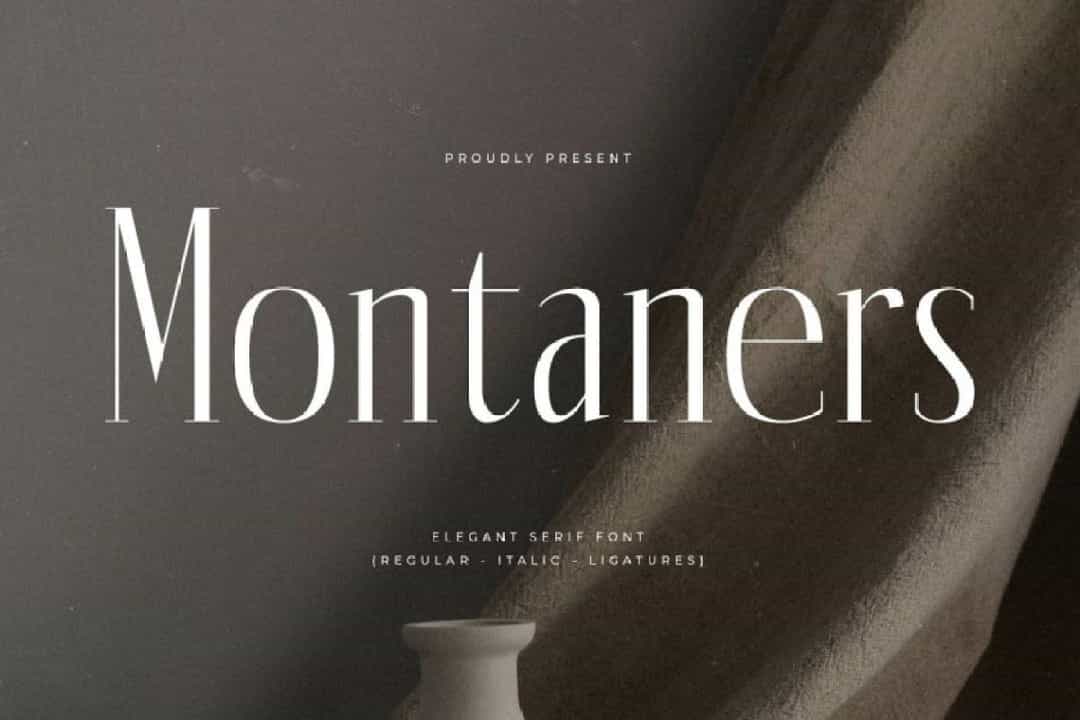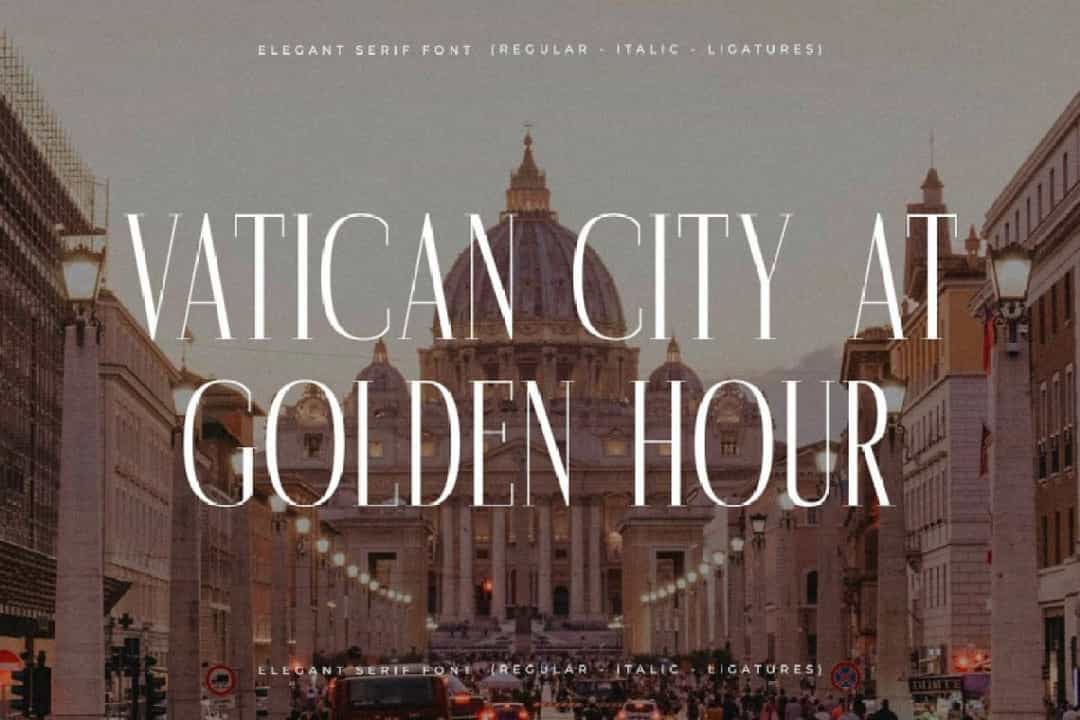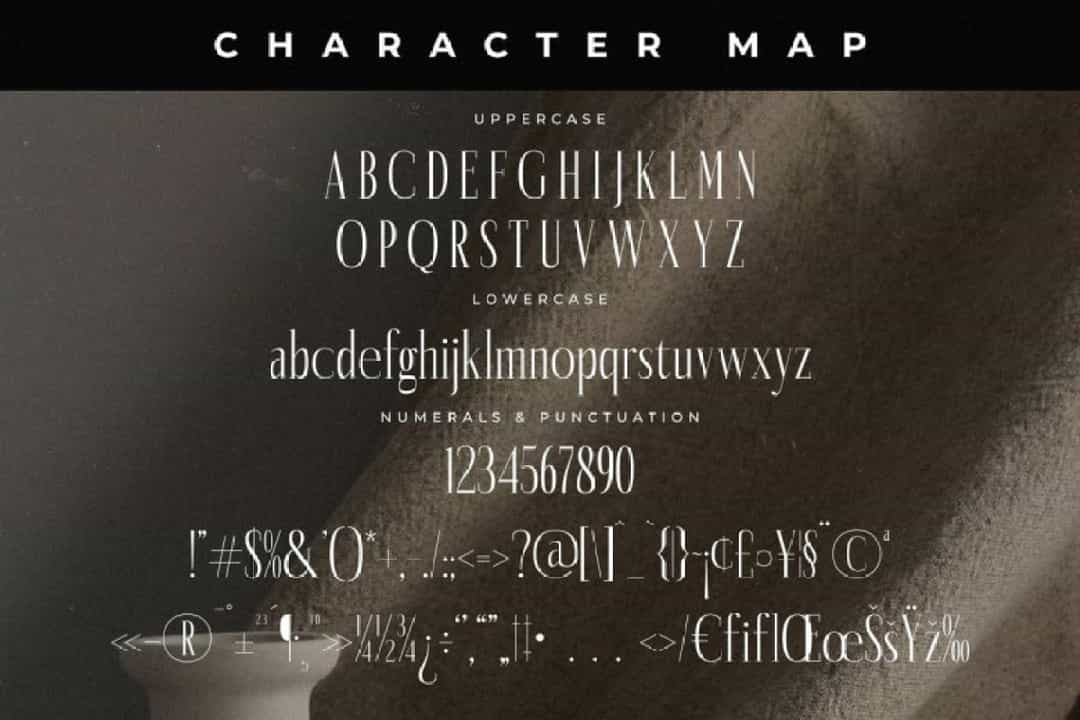
Montaners is an elegant and timeless serif typeface designed for modern use, boasting its distinctive style and contemporary look. Perfect for luxurious logos, book or film styles, title design projects, fashion label clothing designs, magazines letters quotes or any other creative applications it makes an excellent choice.